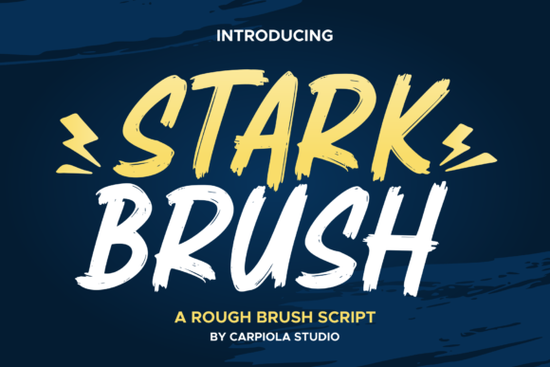
When you need a typeface that skips the polish and goes straight for raw character, Stark Brush fits the brief. Stark Brush is a rough brushed handwritten font that adds a handmade edge to any design, whether you’re working on a gritty logo, a streetwear brand, or a quirky quote graphic. Its letters carry the irregular bounce and dry-brush texture of real brushwork, giving every word a lived‑in, urban feel without looking messy.
What makes Stark Brush a good fit for logos and branding?
Logos built with Stark Brush immediately feel approachable and honest. The uneven strokes and slight rough edges mimic the look of hand‑painted signage, making it ideal for food trucks, coffee roasters, barber shops, and any brand that wants to stand out from sterile corporate type. Because each character has a unique surface quality, you can stack the font name alone as a wordmark and still catch attention. A bold all‑caps version of your business name in Stark Brush reads like a custom sign painter’s work, saving you hours of manual brushing while keeping the artisanal vibe.
Small businesses that sell handmade goods, vintage apparel, or craft supplies often lean on this font for a consistent, friendly identity. Pair it with simple geometric shapes or a subtle paper texture, and the logo holds its own on stickers, hang tags, and social media icons.
Where does Stark Brush work best besides logos?
Short quotes and motivational phrases are a perfect match. The raw strokes add a touch of rebellion to sayings that might otherwise feel too polished. Print‑on‑demand sellers use Stark Brush on unisex t‑shirts, hoodies, and tote bags where a distressed, screen‑printed look sells well. Clothing designs that target street style, skate culture, or music festivals benefit from the font’s street art undertone. Even a single word like “Hustle” or “Wander” becomes a wearable statement when set in this brush typeface.
Designers also slip it into social media templates, podcast cover art, and YouTube thumbnails to break up cleaner layouts. A short headline in Stark Brush paired with a bold sans‑serif or a thin handwritten note creates instant visual hierarchy without extra work.
How does Stark Brush perform on clothing and merchandise?
The rough texture stays visible at most print sizes. On a large poster, the dry‑brush details pop; scaled down for a mug or a cap label, the letterforms stay readable and keep that hand‑drawn charm. Since the font mimics natural brush marks, it blends well with halftone effects, vintage filters, and washed‑out photo backgrounds that print‑on‑demand shops frequently use. A common trick is to set the design in white with a slight transparency over a dark garment mockup, instantly giving it a faded, authentic look.
Crafters who make stickers, heat‑transfer vinyl decals, or etched glassware also grab Stark Brush because the slightly uneven edges look deliberate, not like a cutting mistake. That little imperfection is exactly what makes the final product feel custom‑made.
Can you mix Stark Brush with other font styles?
Absolutely. The rough, painterly strokes contrast nicely with delicate, flowing scripts. For a wedding suite or an art print that needs both urban edge and elegance, try setting the main headline in Stark Brush and adding a softer supporting line. A graceful script like Quietly Rose works well underneath, keeping the overall composition balanced and readable. You can also anchor the brush font with a clean monoline sans‑serif for modern, minimalist branding that still has personality.
- Test the font at multiple sizes – the brush texture can look different at 12pt versus 72pt.
- Adjust letter spacing – a little tracking can highlight the irregular rhythm of the characters.
- Combine with a complementary script or sans‑serif to create a clear visual hierarchy.
- Experiment with color overlays and distress textures to enhance the street art vibe.